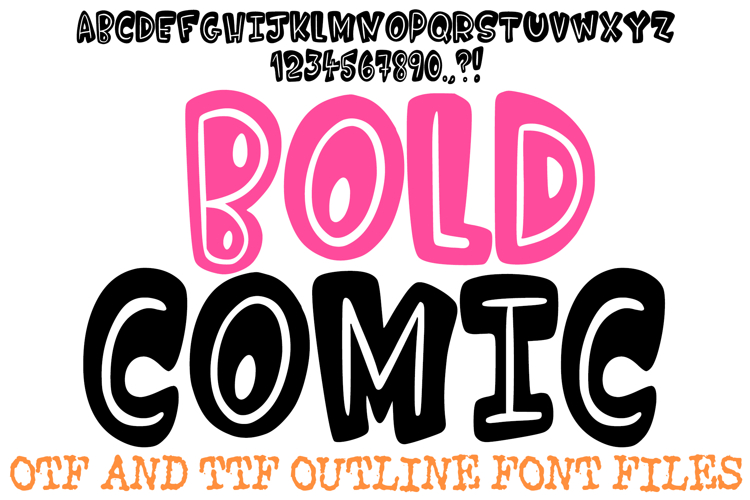
Make a massive statement with the Bold Comic Font! This hand-drawn display alphabet features thick, rounded characters with a solid black fill and a clean 3D drop shadow for maximum dimension. It is the perfect choice for energetic branding, high-impact social media headlines, children's apparel, and any creative project that needs a professional, pop-art aesthetic.
The "pop-art" feel of each character makes your text stand out, providing a sense of depth and volume without losing legibility. Whether you are creating a superhero-themed birthday invite or an edgy streetwear logo, the Bold Comic Font delivers a fun, professional look that captures attention instantly.
Bold 3D Shadow perspective: Every character features a consistent, soft, balloon-like shape and a detailed 3D drop shadow, giving your words a heavy, physical presence.
Clean Sketched Outlines: The slightly irregular, hand-inked borders provide an artisan feel that avoids the stiffness of standard digital fonts.
High Legibility: Despite its thick, chunky weight, each letter is designed with clear open counters to ensure readability across all sizes.